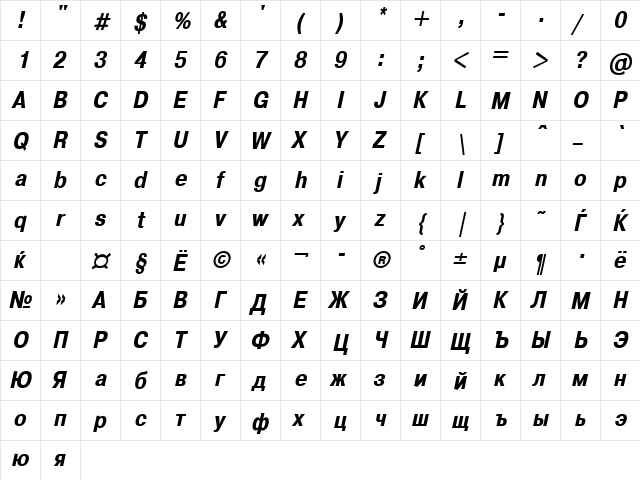
A1011Helvetika TYGRA Condensed Font Preview
A1011Helvetika TYGRA Condensed
A1011Helvetika TYGRA Condensed Font Details
| Style | Condensed |
Design Context for A1011Helvetika TYGRA Typeface
A1011Helvetika TYGRA offers clean, dependable letterforms without strong stylistic allegiance, making it a practical choice for designers who need flexibility. Its narrow stance lets it pack a punch even in space-constrained designs.